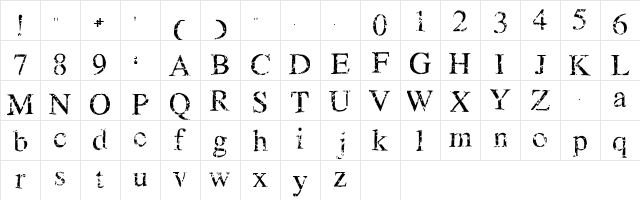
FFX Crack Normal
Complete FFX Crack Normal glyph index. Displaying only characters natively supported by FFX Crack Normal font.
Design Context for FFX Crack
FFX Crack is a composed and adaptable typeface that performs quietly and consistently across a wide range of design contexts.